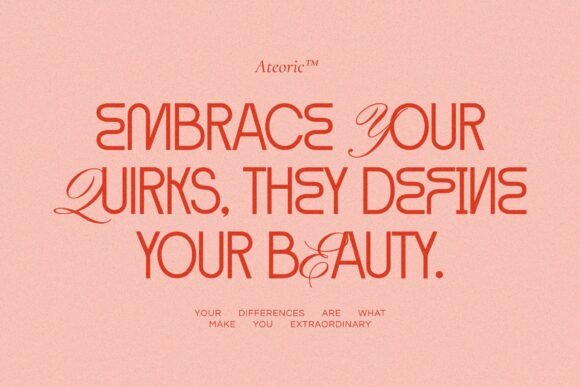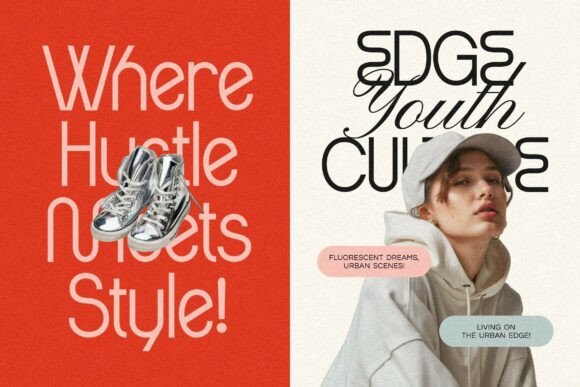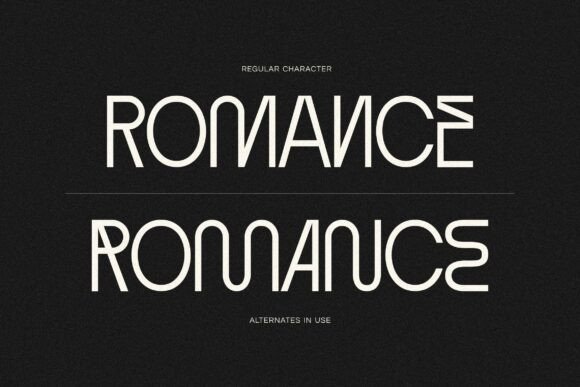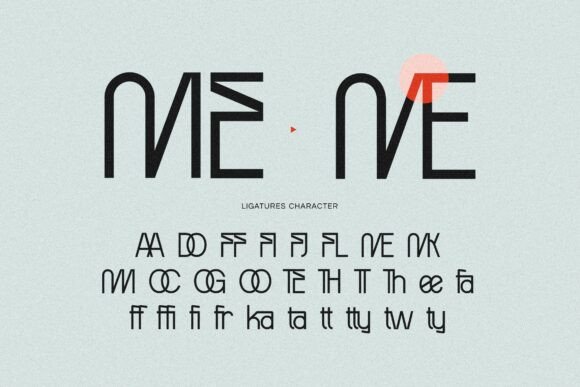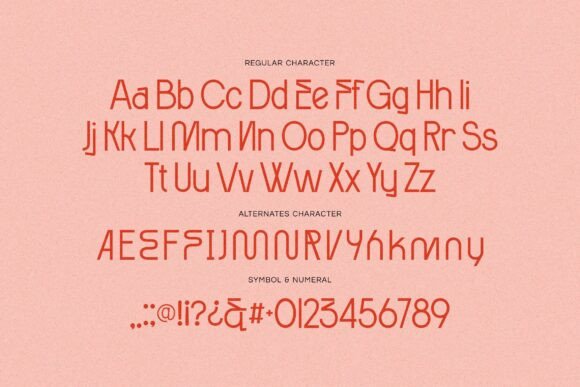
Introducing Ateoric: Elevate Your Creative Projects with a Unique Sans Serif Typeface
In the world of typography, a font can make or break the visual appeal of a creative project. For designers and crafters seeking a typeface that embodies sophistication, versatility, and artistic flair, look no further than Ateoric. This stunning sans serif font seamlessly blends timeless baroque-inspired elements with modern sans serif characteristics, resulting in a captivating and adaptable typeface perfect for a wide range of applications.
The Art of Ateoric: A Harmonious Blend of Styles
Ateoric’s design is rooted in the perfect harmony of classic and contemporary typographic elements. By merging the elegance of baroque-inspired sans serif fonts with the clean lines of modern sans serif typefaces, Ateoric achieves a unique balance that sets it apart from other fonts. The incorporation of curved cuts adds an artistic touch, elevating the font’s aesthetic appeal and making it an excellent choice for projects where visual impact is crucial.
Key Features of Ateoric
• Unique and Sophisticated Design: Ateoric’s distinctive blend of classic and modern elements makes it a standout in the world of typography.
• Versatility: With its clean lines and elegant curves, Ateoric is suitable for a wide range of applications, from editorial and publishing to luxury branding and packaging.
• Timeless Appeal: The font’s baroque-inspired roots ensure a timeless quality, allowing Ateoric to remain relevant and stylish for years to come.
• Adaptability: Whether you’re working on a magazine, book, logo, or packaging design, Ateoric adapts effortlessly to various contexts and mediums.
Applications of Ateoric: Bringing Your Creative Projects to Life
Ateoric’s versatility makes it an excellent choice for various creative projects. Here are some ideal applications for this exceptional typeface:
• Editorial and Publishing: Elevate your magazine, book, or newspaper designs with Ateoric’s elegant and sophisticated lines.
• Luxury Branding: Create a lasting impression with Ateoric’s unique blend of classic and modern elements, perfect for high-end brand identities.
• Packaging Design: From cosmetics to gourmet foods, Ateoric adds a touch of sophistication to product packaging, making it stand out on store shelves.
• Logos and Brand Identity: Establish a strong visual identity with Ateoric’s distinctive and memorable design.
• Posters and Advertising: Make a bold statement with Ateoric’s artistic appeal and versatility, ideal for posters, flyers, and other advertising materials.
Why Choose Ateoric for Your Design Projects?
In a crowded design landscape, it’s essential to select a font that not only meets your creative needs but also elevates your project’s visual appeal. Ateoric offers:
• Enhanced Visual Impact: With its unique blend of classic and modern elements, Ateoric ensures your design stands out.
• Flexibility: The font’s adaptability makes it suitable for various applications and mediums.
• Timeless Elegance: Ateoric’s design ensures a timeless quality, allowing your project to remain stylish and relevant.
Ateoric is a game-changing sans serif typeface that offers designers and crafters a unique blend of sophistication, versatility, and artistic flair. With its perfect harmony of timeless baroque-inspired elements and modern sans serif characteristics, Ateoric is poised to elevate your creative projects and leave a lasting impression. Whether you’re working on editorial, publishing, luxury branding, or packaging design, Ateoric is the perfect choice for those seeking a font that embodies elegance, adaptability, and visual impact.
Discover the creative possibilities with Ateoric and experience the difference a well-crafted typeface can make in your design projects.